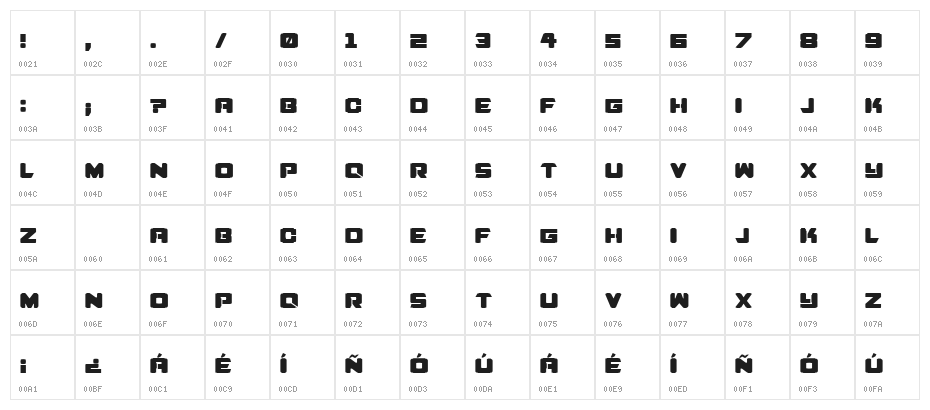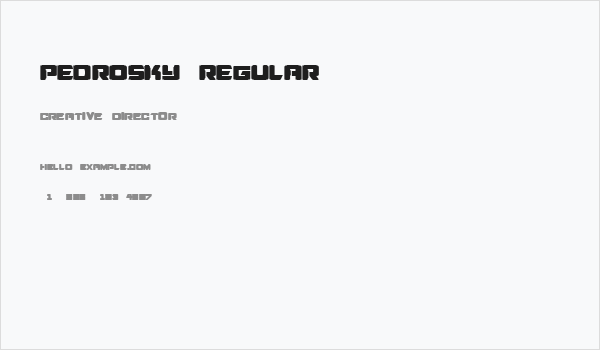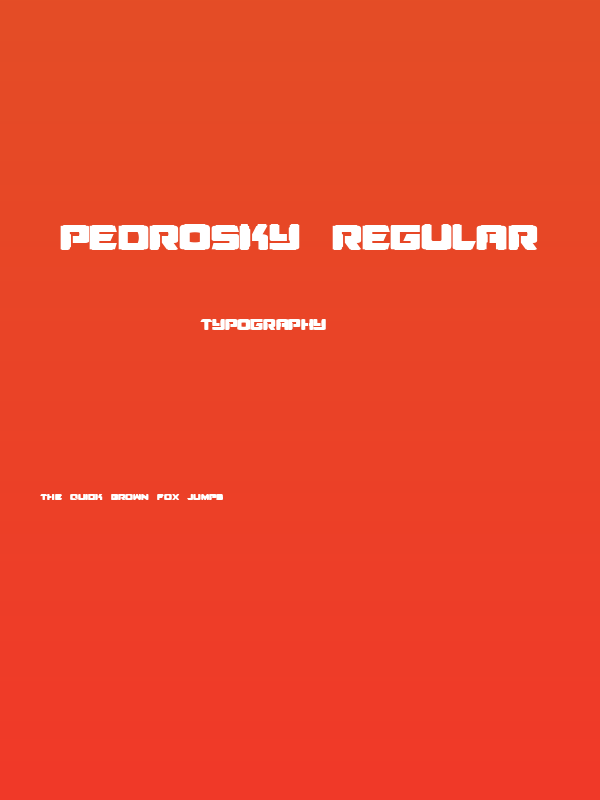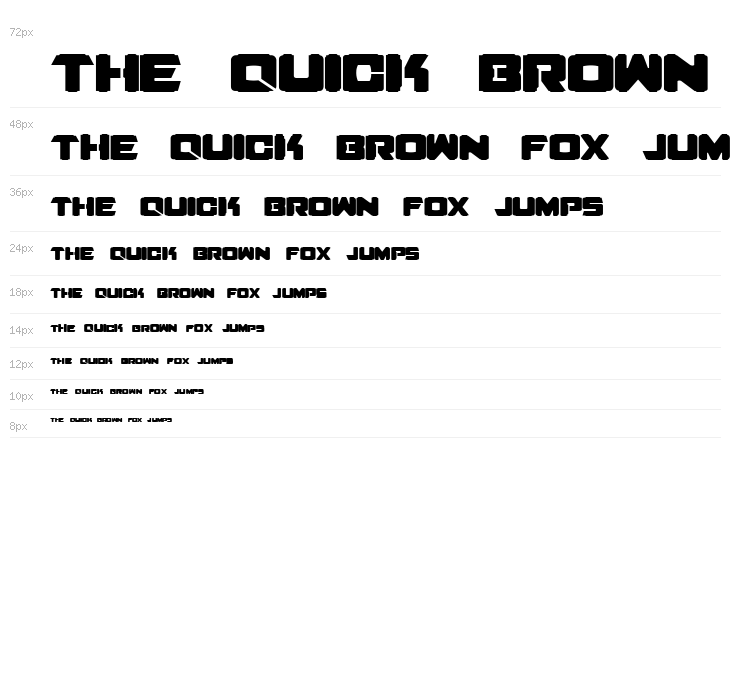
Pedrosky Regular Font
Pedrosky Regular Description
This font features a bold and geometric design with a strong presence. The characters are constructed with thick, block-like shapes that give it a robust and modern appearance. The angular cuts and sharp edges add a dynamic and futuristic feel. The uppercase and lowercase letters maintain a consistent style, ensuring uniformity across the typeface. The numbers and special characters are designed to match the bold aesthetic, making them stand out effectively. This font is ideal for projects that require a strong visual impact.
| Proposed Projects | Ideal for branding, posters, headlines, and any design requiring a strong visual impact. |